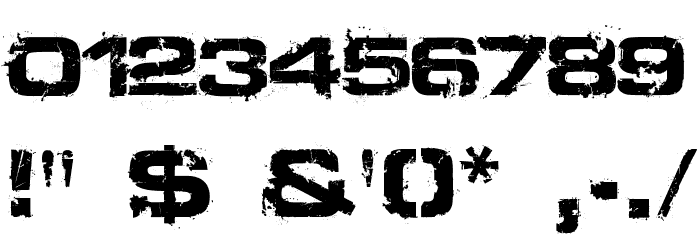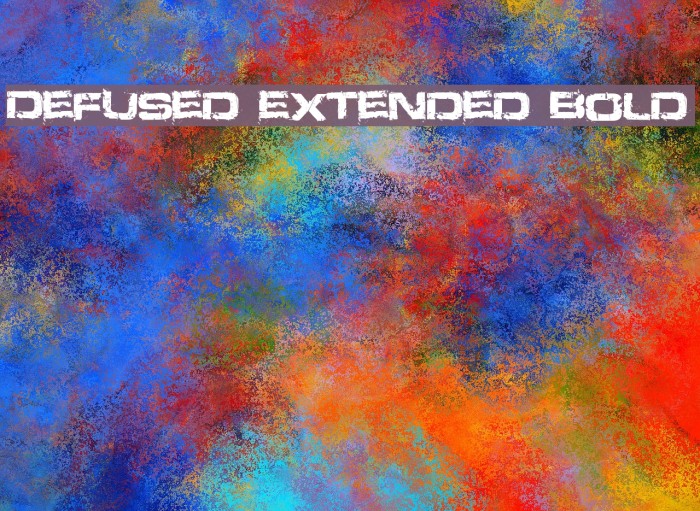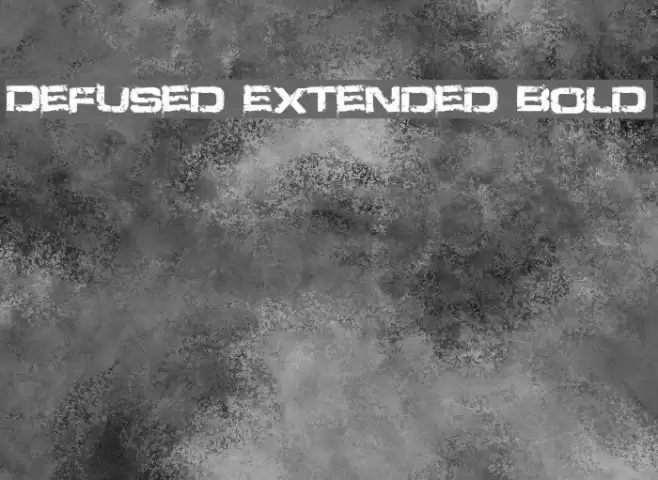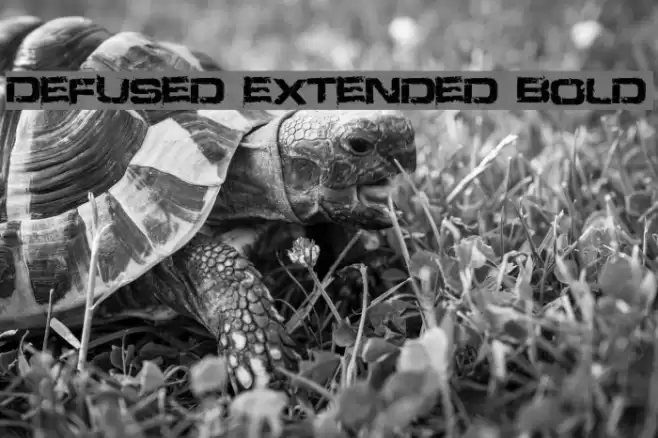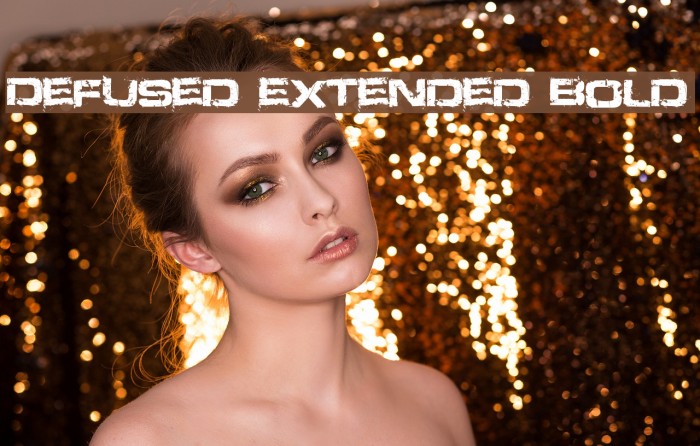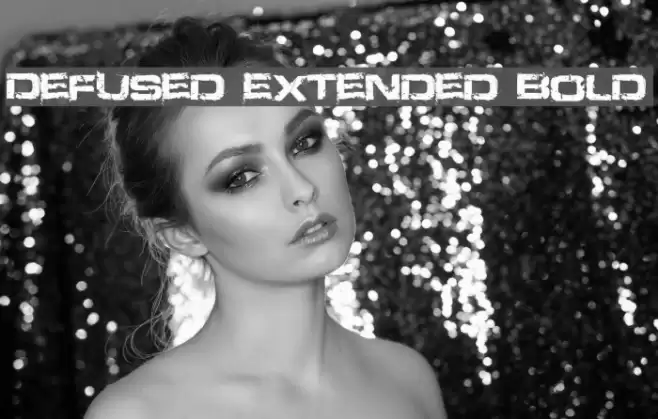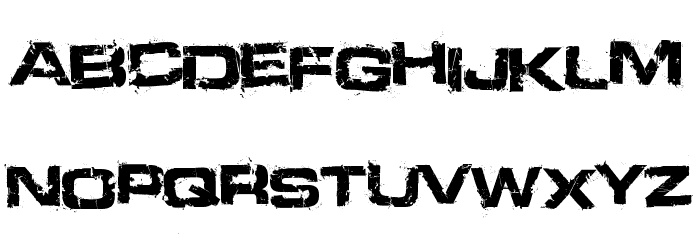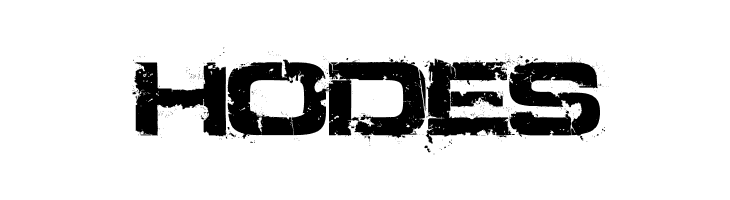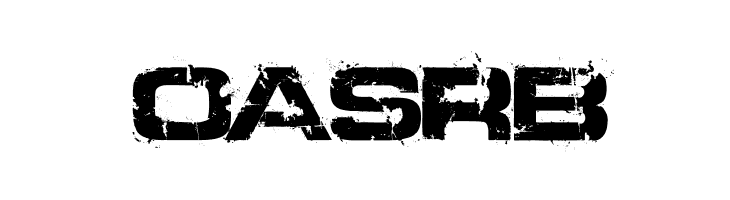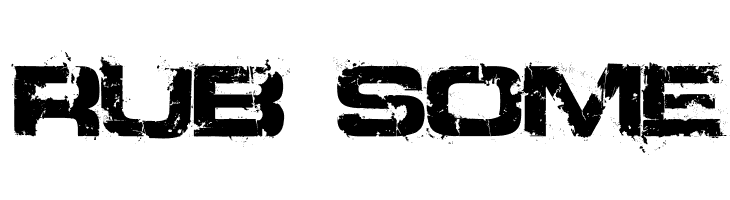
Defused Extended Bold Font
Defused Extended Bold Description
This font features a bold, distressed style with a rugged, textured appearance. The characters are designed with a rough, eroded effect, giving them a worn and weathered look. The uppercase letters are prominent and impactful, making them suitable for attention-grabbing designs. The numbers and special characters maintain the same distressed aesthetic, ensuring consistency across all elements. The overall design is bold and eye-catching, perfect for projects that require a strong visual impact.
| Proposed Projects | Ideal for posters, album covers, branding for edgy products, or any design requiring a strong, impactful statement. |